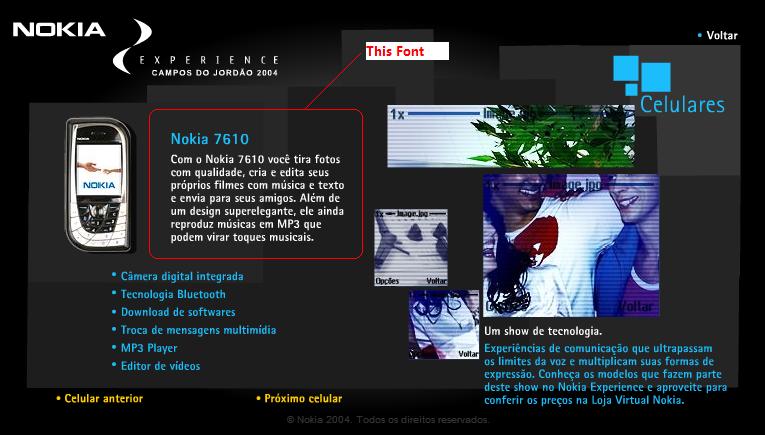
came up with that a couple times and with google a term like elegance..forget about it :pinch:
I think Elegance is a rip of ITC Kabel Bold or a slight derivative of it.
Anyhow the one I have fits the bill and I'm happy.